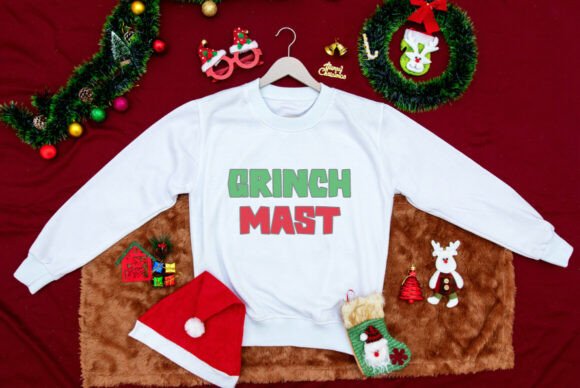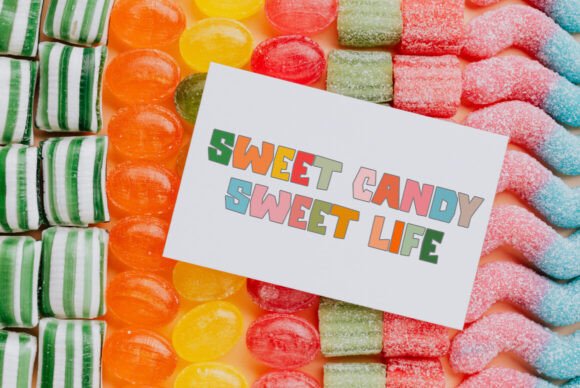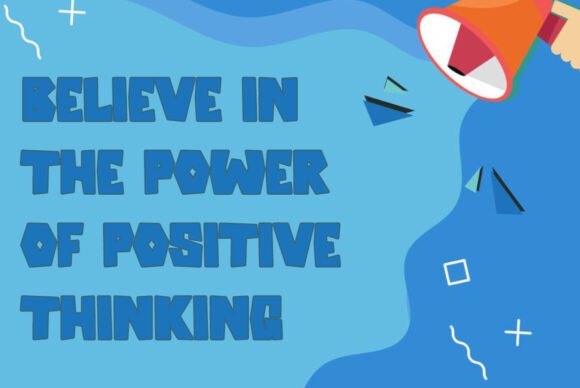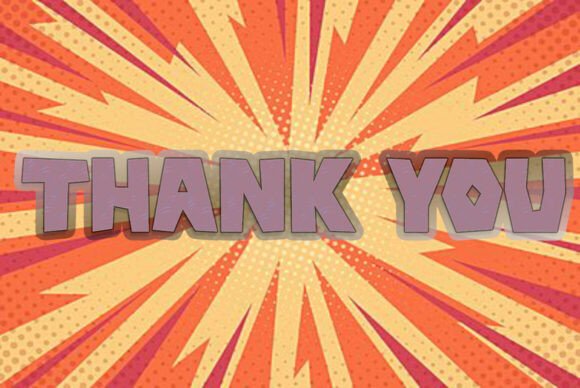
Introduction to Grinch Granch Font
Remember that moment when you’re brainstorming ideas for your next creative project and the perfect font just slips your mind? You’ve scrolled through hundreds of options, but nothing seems quite right. The struggle is real, especially when you’re working with a tight deadline. But what if you had a secret designing tool that could elevate your design outcomes like never before? Enter the Grinch Granch Font, a beautifully crafted display font that radiates a spirit of authenticity and playfulness.
Designed to bring a touch of whimsy and personality to your designs, the Grinch Granch Font is more than just a font – it’s a game-changer for designers. With its unique character and high-quality design, it’s perfect for adding a stylish touch to your blog posts, branding, advertisements, and logos. Whether you’re looking for a free download or a valuable design resource, the Grinch Granch Font is sure to impress.
And the best part? With its transparent background and versatile design, the Grinch Granch Font is easy to work with, making it perfect for a variety of creative projects, from invitations and greeting cards to planners, photo albums, and decorations.
Key Features of Grinch Granch Font
- Unique, whimsical design perfect for creative projects and holiday-themed designs
- High-quality font with transparent background for easy customization and seamless integration
- Characteristics include bold lines, playful curves, and an overall Grinch-inspired aesthetic
- Designed to be scalable and resolution-independent, making it ideal for use in various mediums and sizes
- Perfect for adding a touch of Grinch Granch Font’s quirky charm to your design, print, or digital project
Honest Review: Grinch Granch Font
As a designer, I’ve worked with my fair share of fonts, but the Grinch Granch Font caught my attention. I downloaded it for free from a popular design resource website, and I must say it’s been a great addition to my creative project.
Here’s what I love about this font:
- ✨ Its unique and quirky design makes it perfect for adding a touch of whimsy to my projects.
- ✨ The high-quality graphics make it suitable for both digital and print projects.
- ✨ The font is available with a transparent background, which gives me the flexibility to use it with any design element.
However, I do have some reservations:
- ⚠️ The font might be too bold for some designs, so use it sparingly.
- ⚠️ The free download version has some limitations, such as limited character sets.
Overall, I’m impressed with the Grinch Granch Font. It’s a great design resource that can add a lot of personality to your projects. With a little creativity, you can work around its limitations and create some amazing designs. I would definitely recommend it to fellow designers looking for a unique font to add some zing to their work.